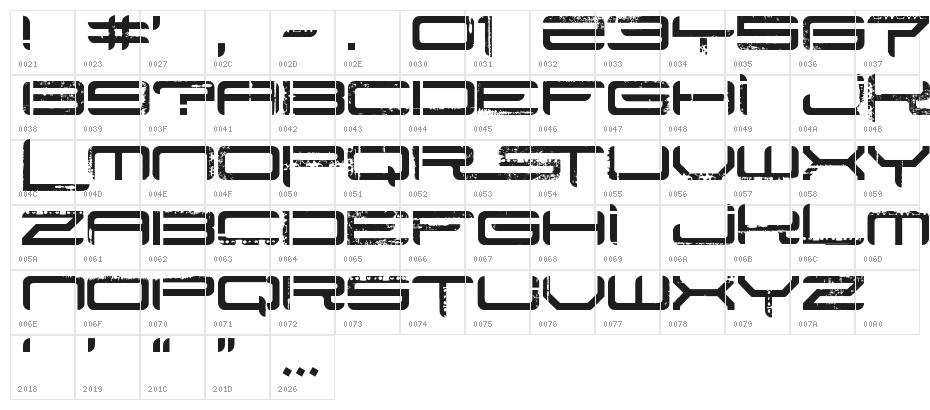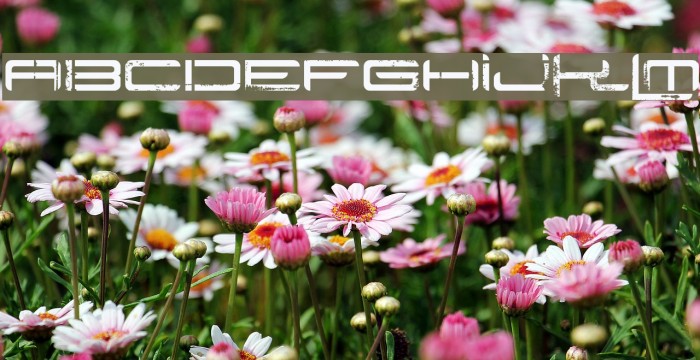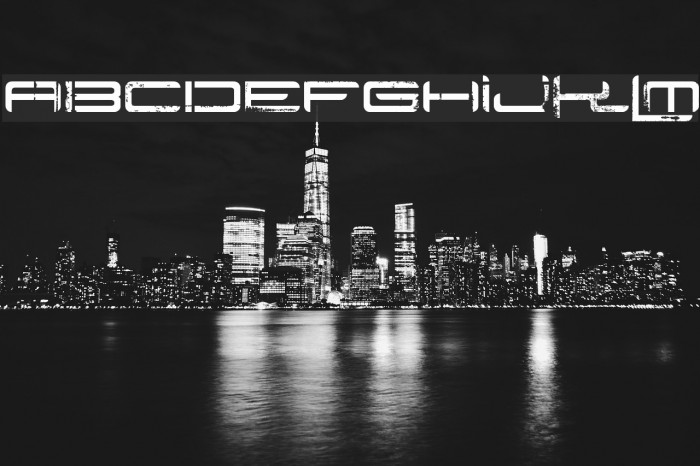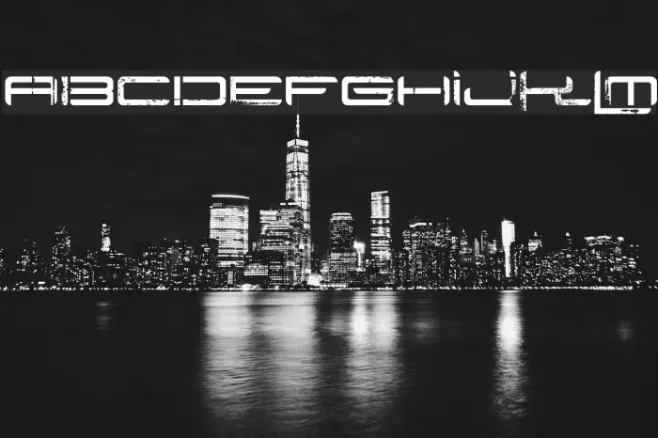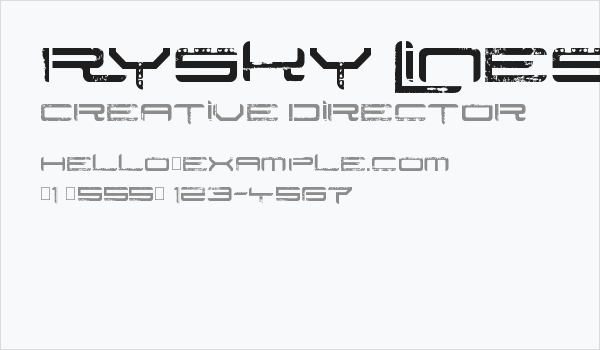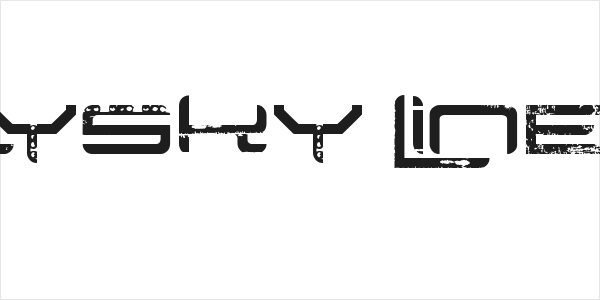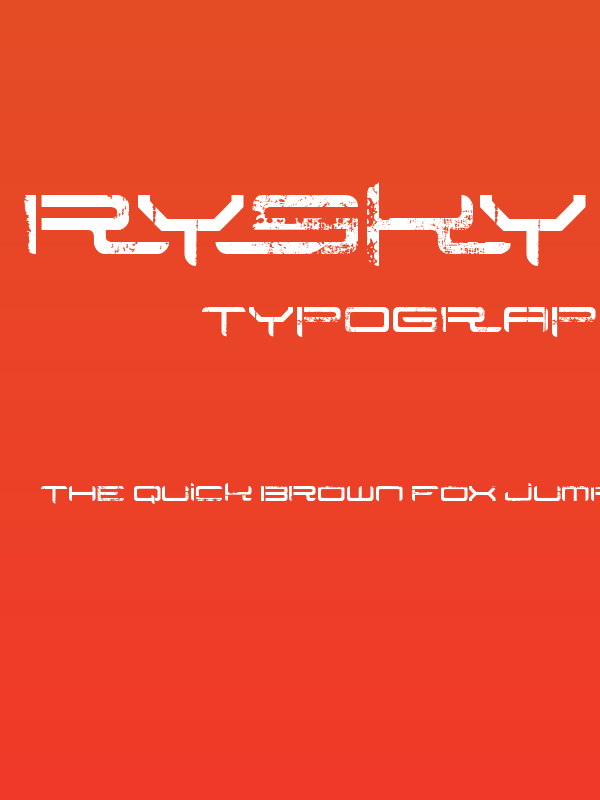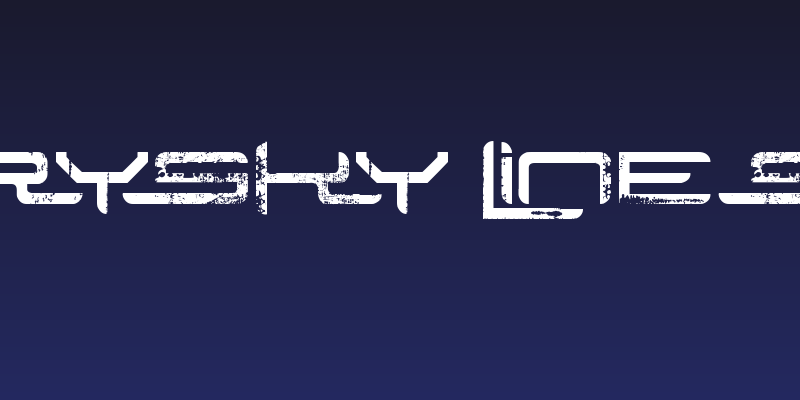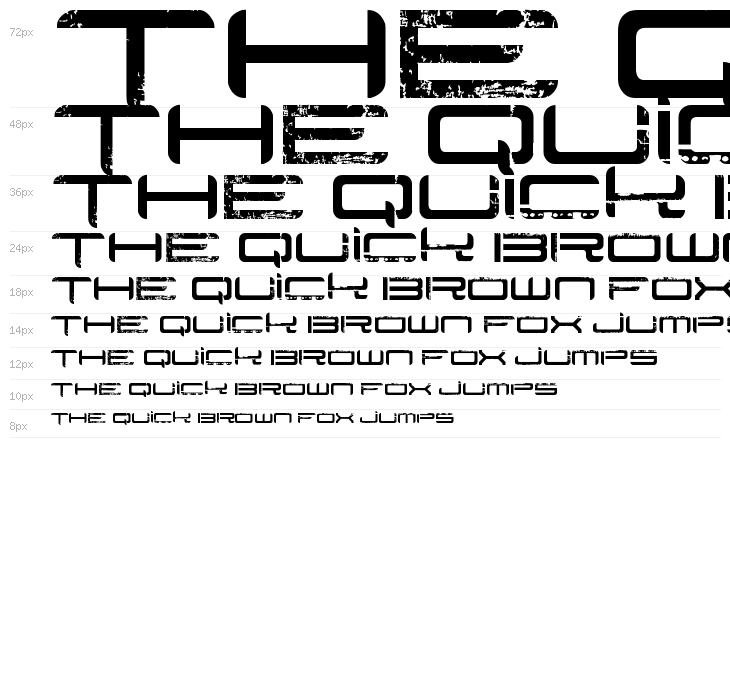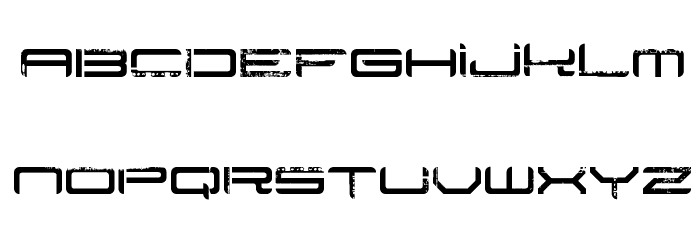
Rysky Lines Font
Rysky Lines Description
This font features a modern, distressed style with a futuristic edge. The characters are designed with a stencil-like appearance, incorporating a grunge texture that gives them a worn, industrial look. The uppercase and lowercase letters maintain a consistent geometric form, while the numbers and special characters follow the same aesthetic. The font's unique design makes it stand out, with its bold lines and artistic imperfections that suggest a sense of movement and energy. It's perfect for projects that require a bold statement or a touch of urban flair.
| Proposed Projects | Ideal for urban-themed posters, edgy branding, video game titles, and music album covers. |